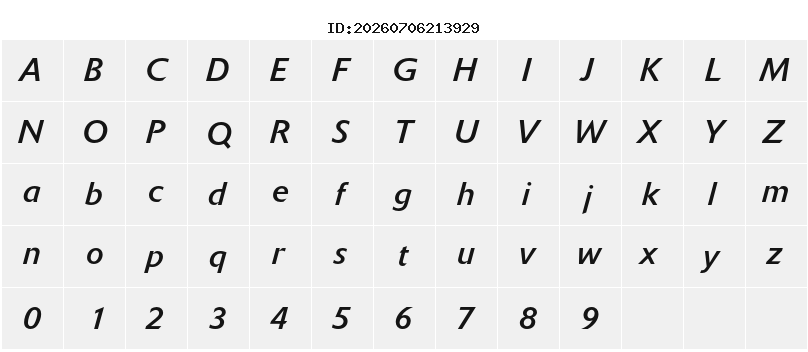
Delta Jaeger Book Preview
• Font Name: Delta Jaeger Book
• Full Font Name: Delta-BookItalic
• PostScript Name: Delta-BookItalic
About Delta Jaeger Book.otf
Delta Jaeger Book.otf is a modern, elegant sans-serif font designed for ultimate readability and visual harmony. Perfect for branding, headlines, web design, and print materials.